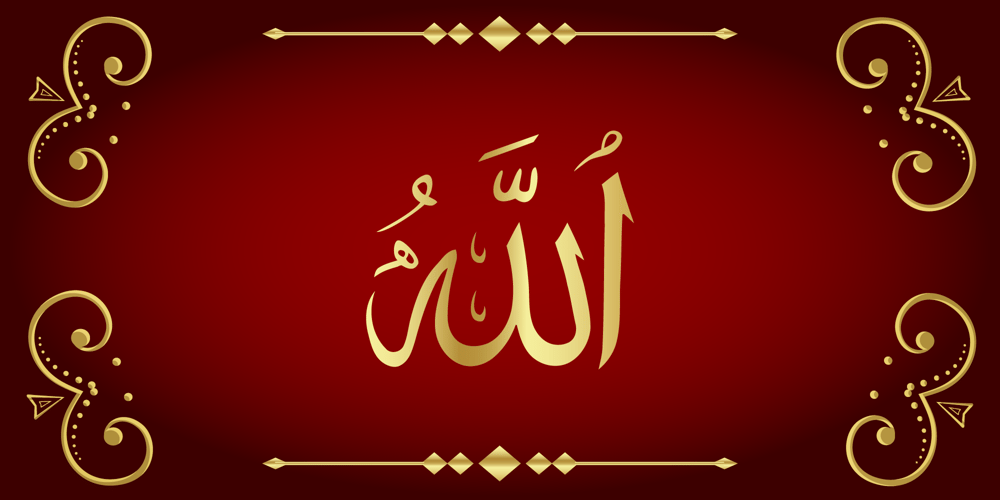
99 Names of ALLAH Minimal Font Family was designed by Ibrahim Abdo and published by Islamic Calligraphy75. 99 Names of ALLAH Minimal contains 1 styles and family package options. We have transformed the “99 names of ALLAH” into a font. That means each key on your keyboard represents 1 of the 99 names of ALLAH Aaza Wajal. The fonts work with both the English and Arabic Keyboards. We call this Calligraphy “Minimal” because of the minimal decoration and simplistic design. The first “Alef” has a “hamzit wasel”, this indicates that the name can be pronounced both as “AR-RAHMAAN” or “R-RAHMAN” (in the zip file you will find a pdf file explaining the differences in the “harakat”, pronunciation and spelling according to the Holy Quran). This calligraphy is not only minimal in its design but easy to read, very few letters overlaps and the decorative symbols are at minimum. Decorative letters used in this calligraphy: “Mim, Aain, Sin, HHe, He & Saad”. Purpose & use: – Writers: Highlight the names in your texts in beautiful Islamic calligraphy. – Editors: Use with kinetic typography templates (AE) & editing software. – Designers: The very small details in the names does not affect the quality. Rest assured it is flawless. The MOST IMPORTANT THING about this list is that all the names are 100% ERROR FREE, and you can USE THEM WITH YOUR EYES CLOSED. All the “Tachkilat” are 100% ERROR FREE, all the “Spelling” is 100% ERROR FREE, and they all have been written in accordance with the Holy Quran. No names are missing and no names are duplicated. The list is complete “99 names +1”. The +1 is the name “ALLAH” ‘Aza wajal. Another important thing is how we use the decorative letters. In every font you will see small decorative letters, these letters are used only in accordance with their respective letters to indicate pronunciation & we don’t include them randomly. That means “mim” on top or below the letter “mim”, “sin” on top or below the letter “sin”, and so on and so forth. Included: Pdf file telling you which key is associated with which name. In that same file we have included the transliteration and explication of all 99 names. Pdf file explaining the differences in the harakat and pronunciation according to the Holy Quran. Here is a link to all the extra files you will need: https://drive.google.com/drive/folders/1Xj2Q8hhmfKD7stY6RILhKPiPfePpI9U4?usp=sharing —————————————————————————————————————————